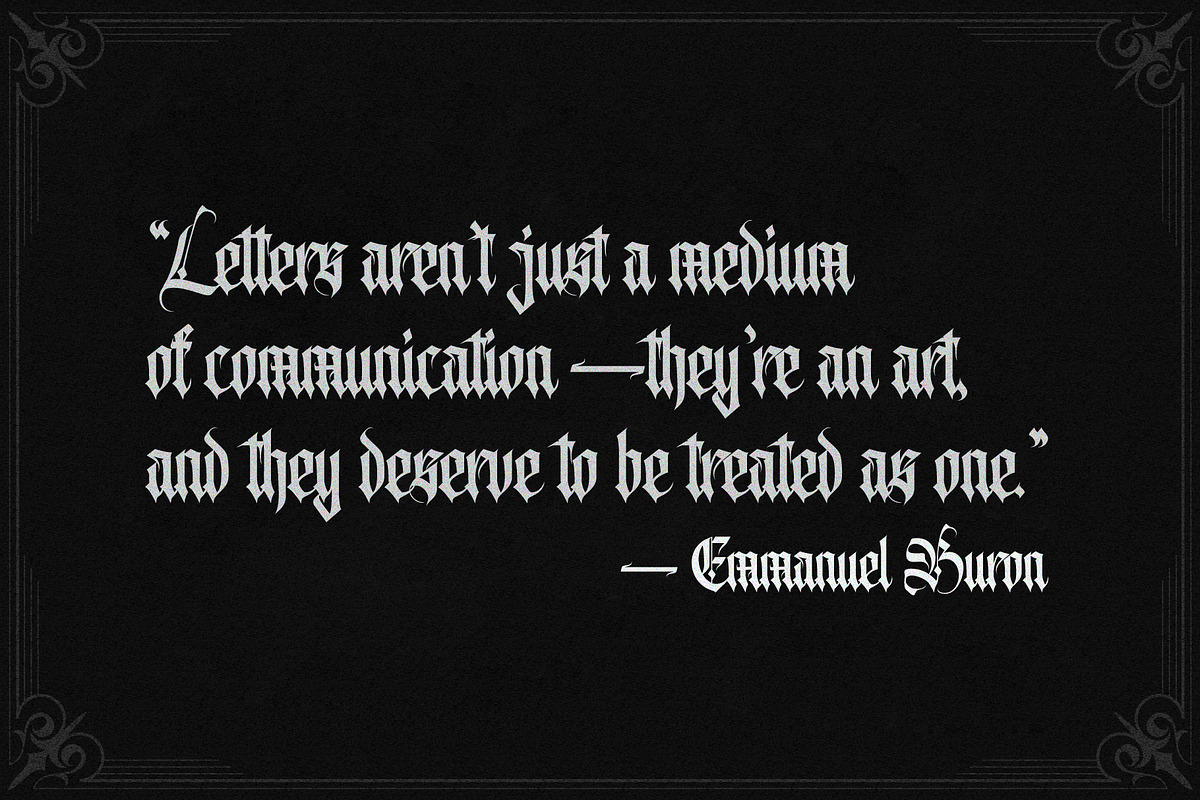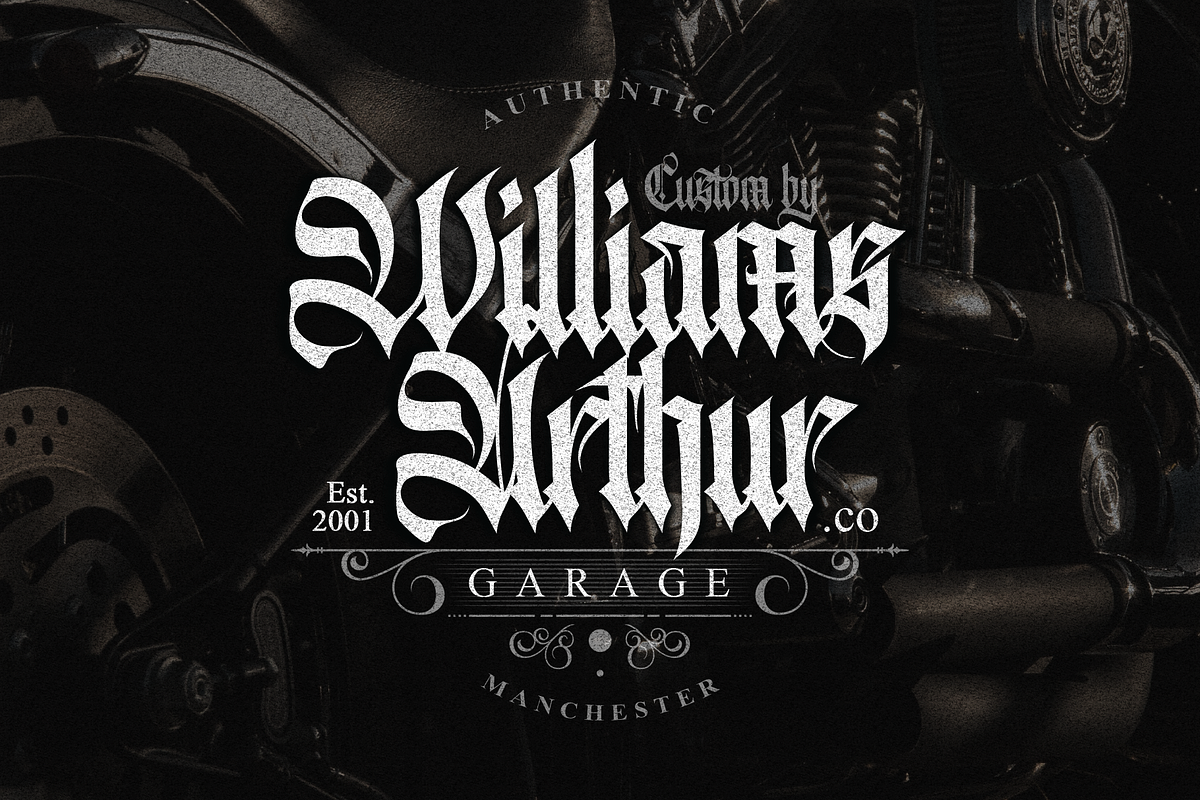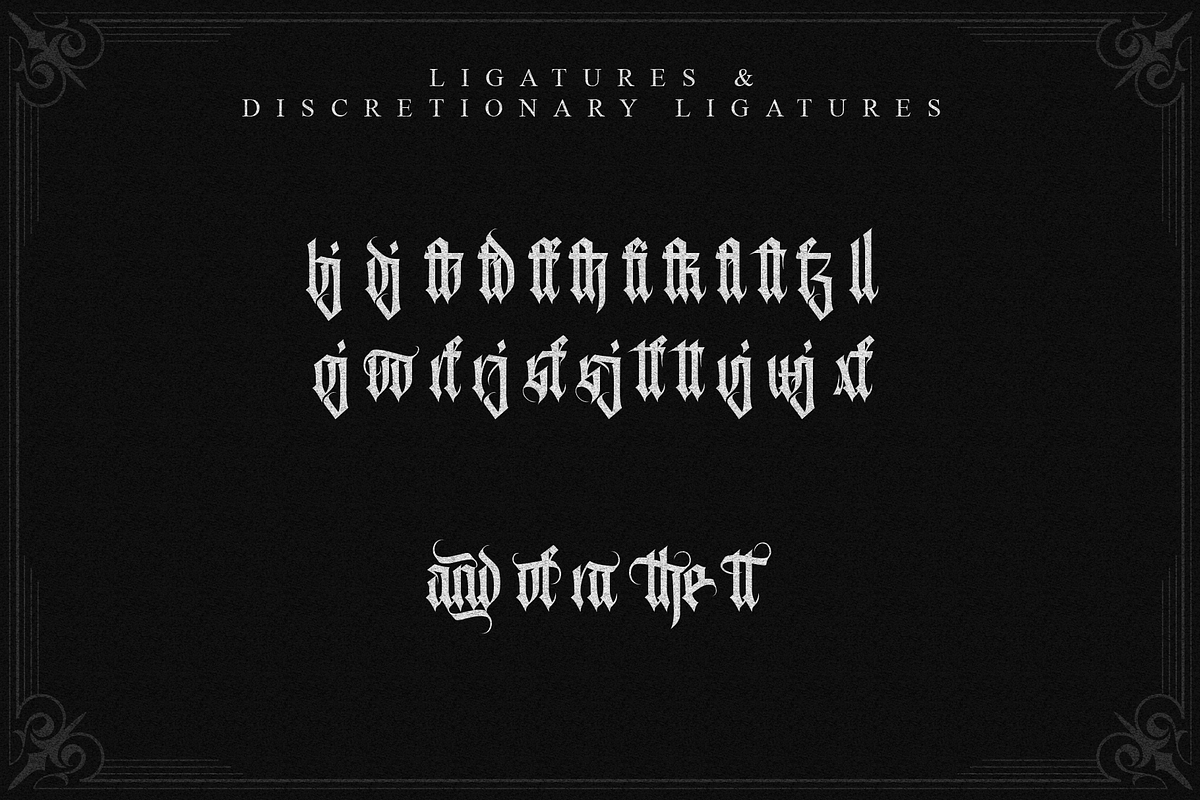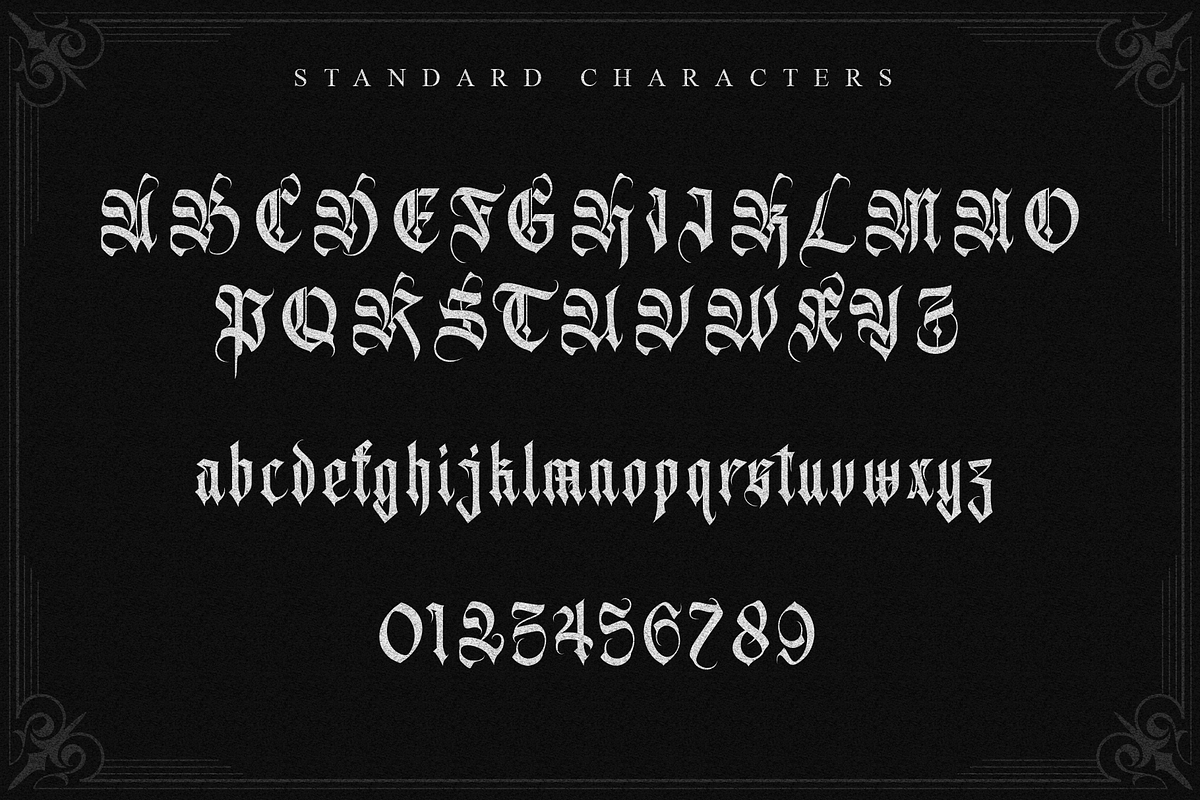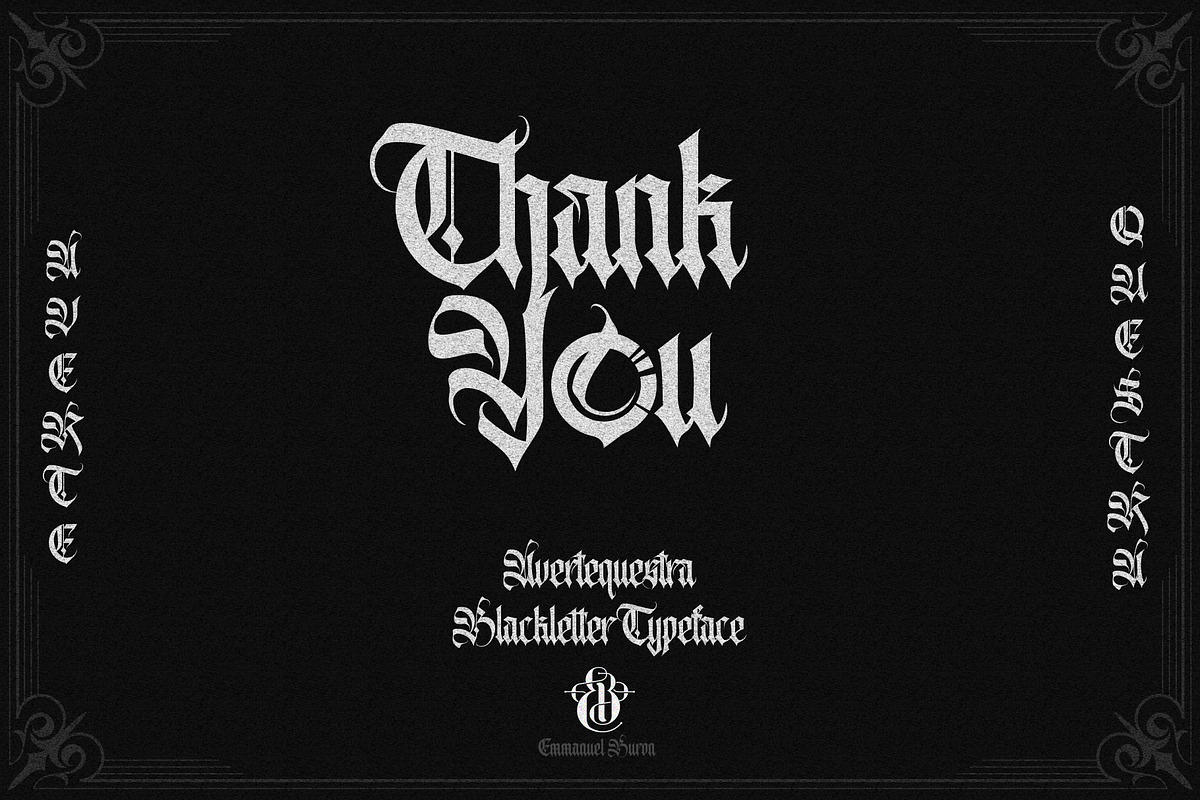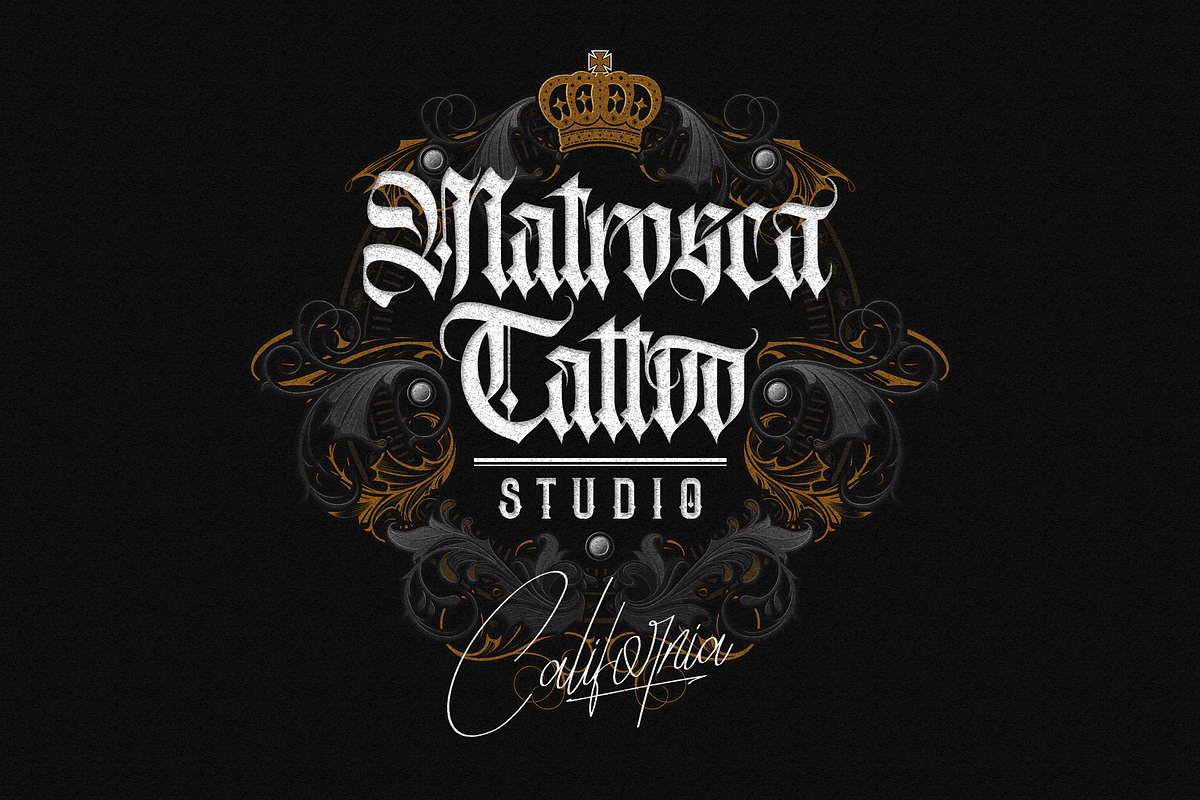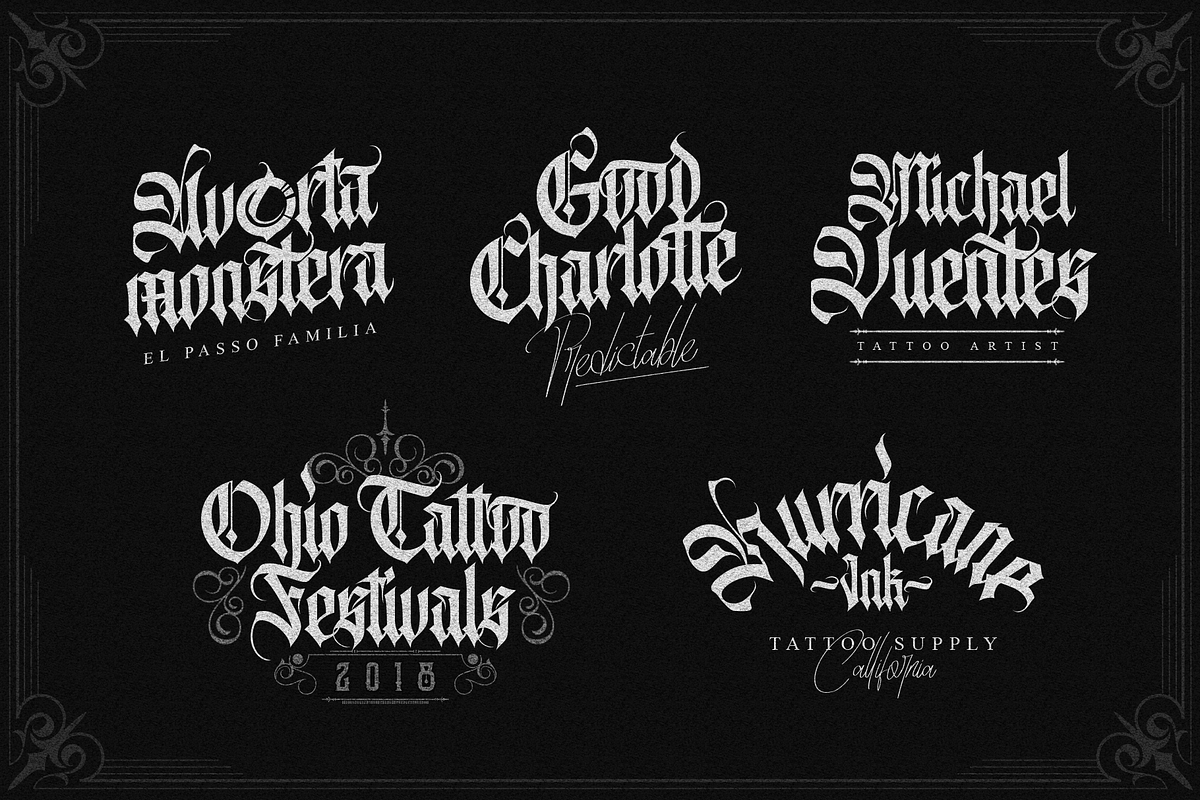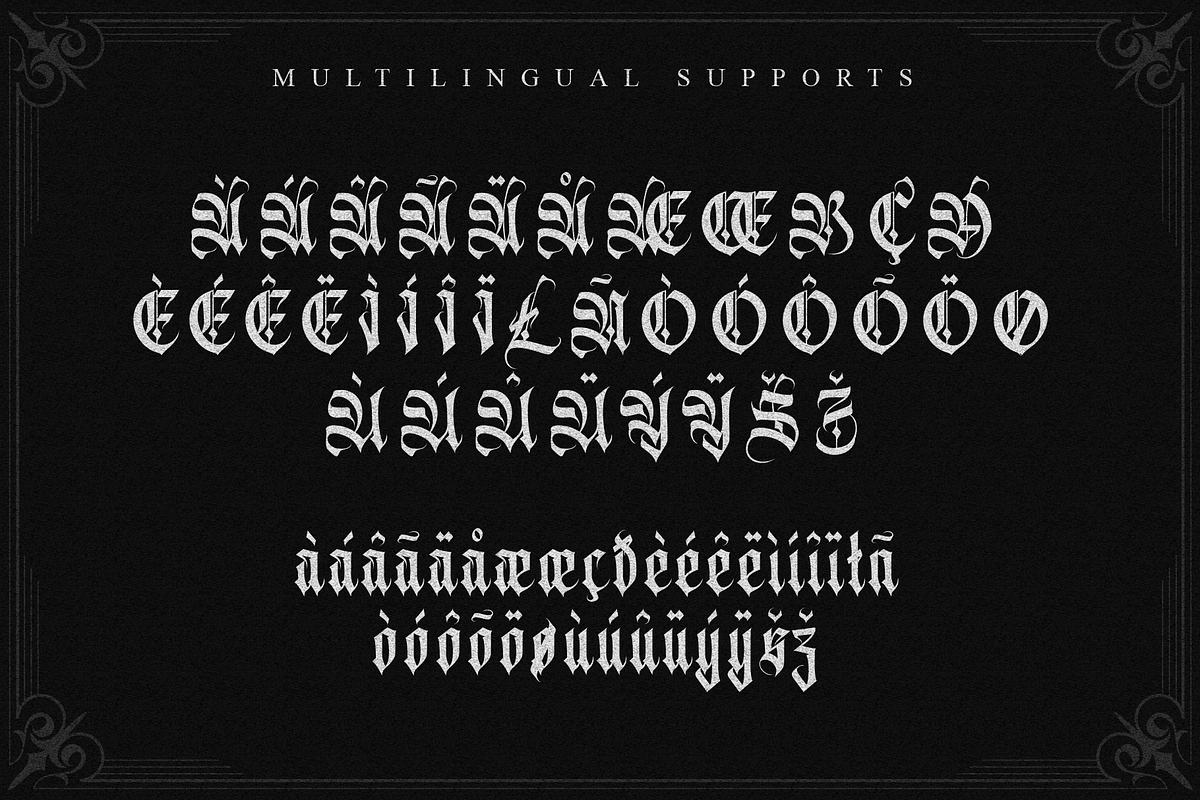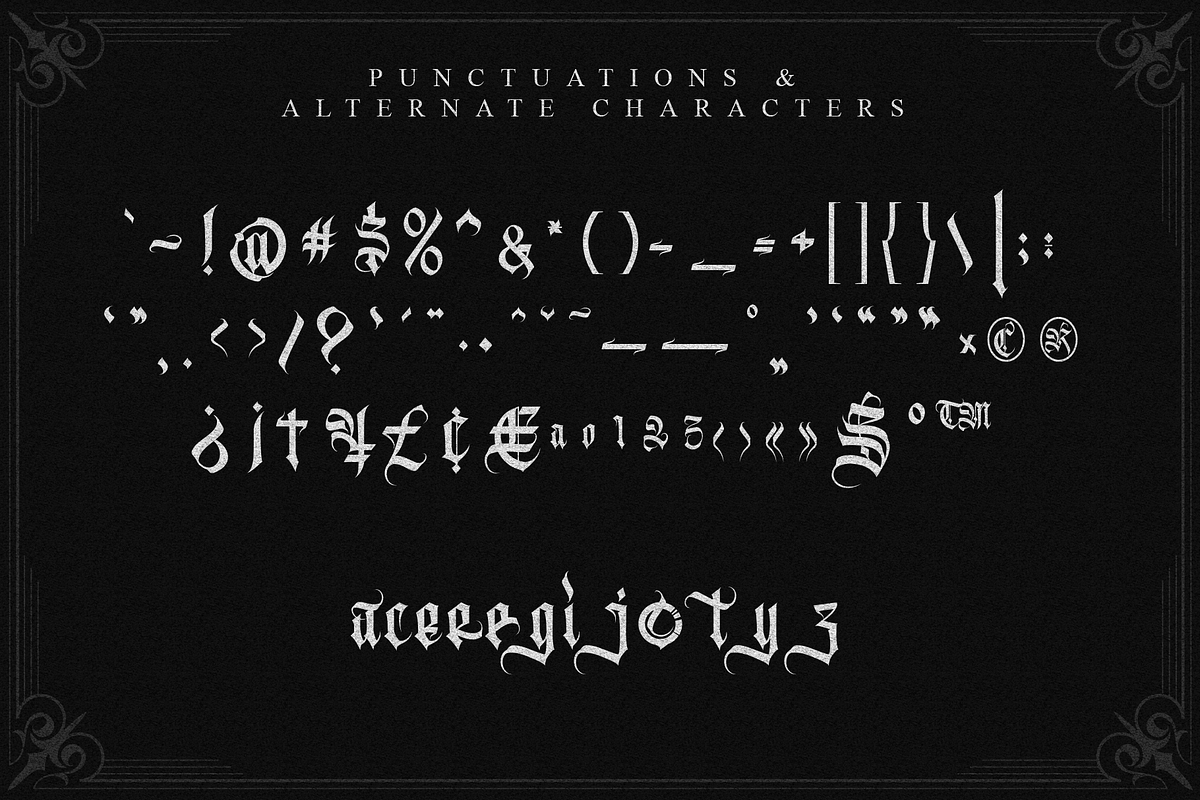
Avertequestra
Blackletter Calligraphy Font That Speaks To The Soul.
This new, one-of-a-kind calligraphy font creates music for the ears and enlightens your eyes. Make your message stand out with words of intrinsic value. This typeface with Blackletter style infuses style and creativity into your projects. The uniqueness radiates a message that shines. The font reflects its fantastic performance as a text face, a perfect option to create a design choice for tattoo logo, barbershop logo, music events, badges, clothing, and other creative tasks. The Blackletter calligraphy font contains all the beatitude ingrained in the script - exceptional characters in both upper and lowercase, special characters, punctuation, and extra ornaments to your favor. Deliver a vigorous new life with your message in one of the most expressive faces. It allows staunch expressions in many different contexts and highlights words in an unmistakable fashion. Explore and grab today!
I found a passion for this calligraphic style through its functional and beautiful applications to design. It is stunning how much the lettering can enhance any asset it finds pairing with - including graphics and documents of all bases.